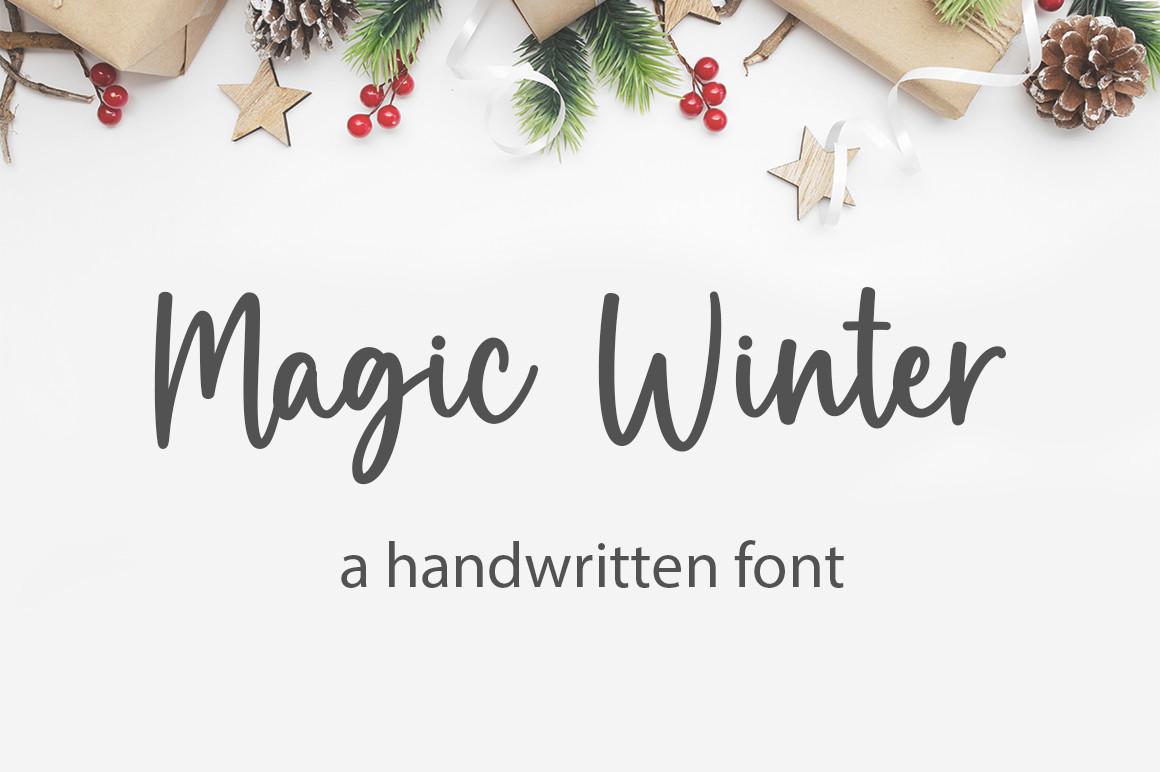
Magic Winter Font Description
Magic Winter is a stylish and incredibly elegant script font. It looks stunning on wedding invitations, thank you cards, quotes, greeting cards, logos, business cards and every other design which needs a handwritten touch. This font is PUA encoded which means you can access all glyphs and swashes with ease!